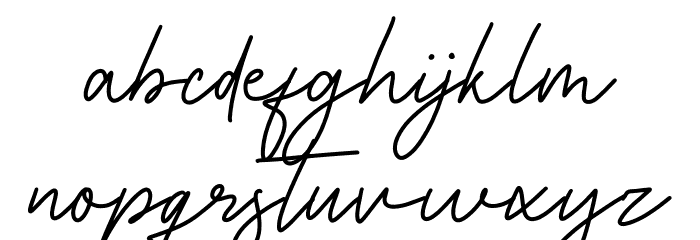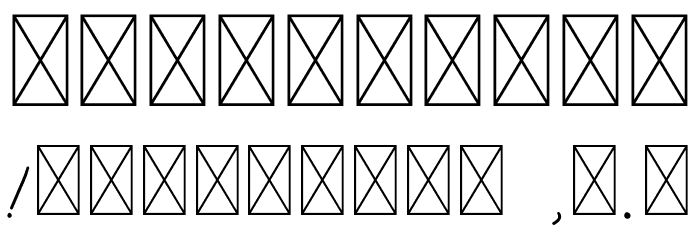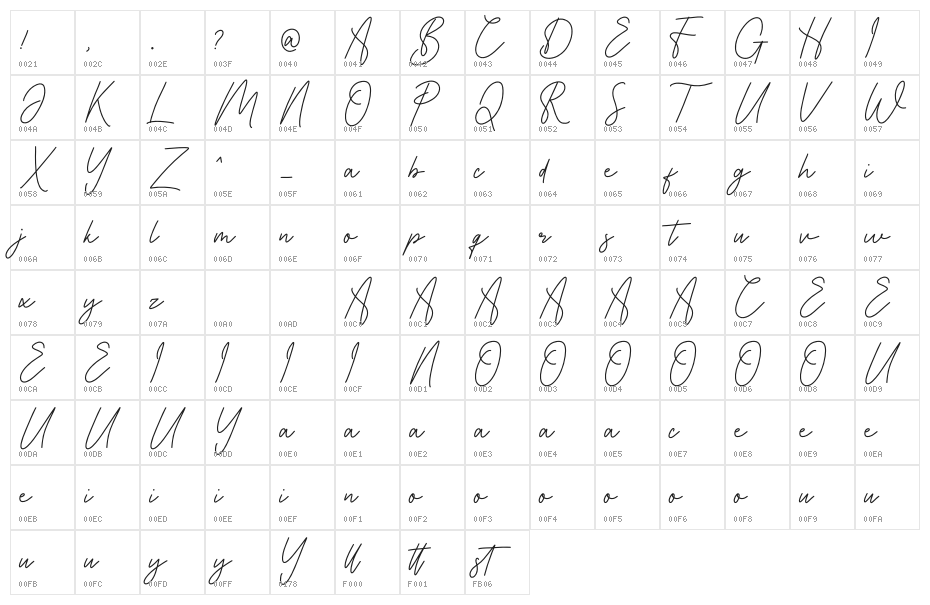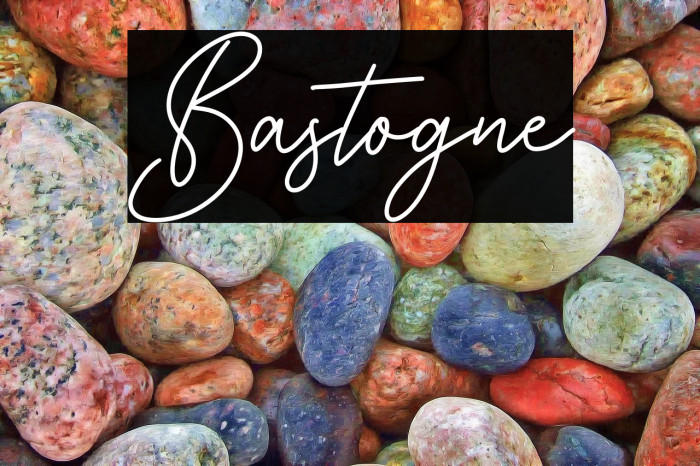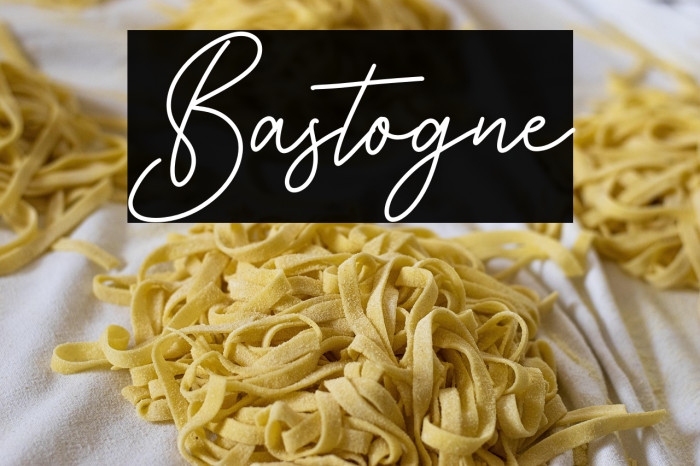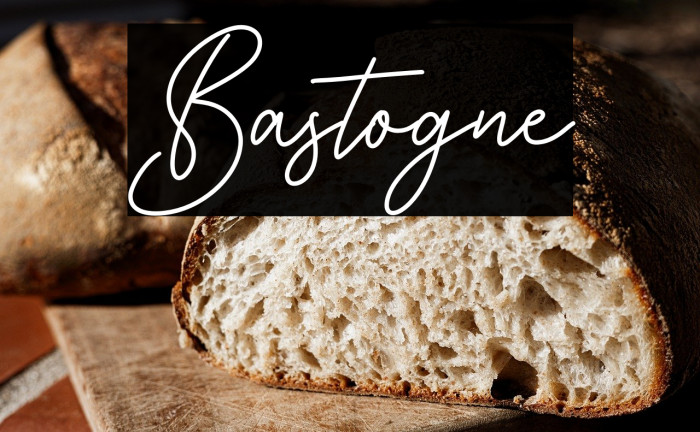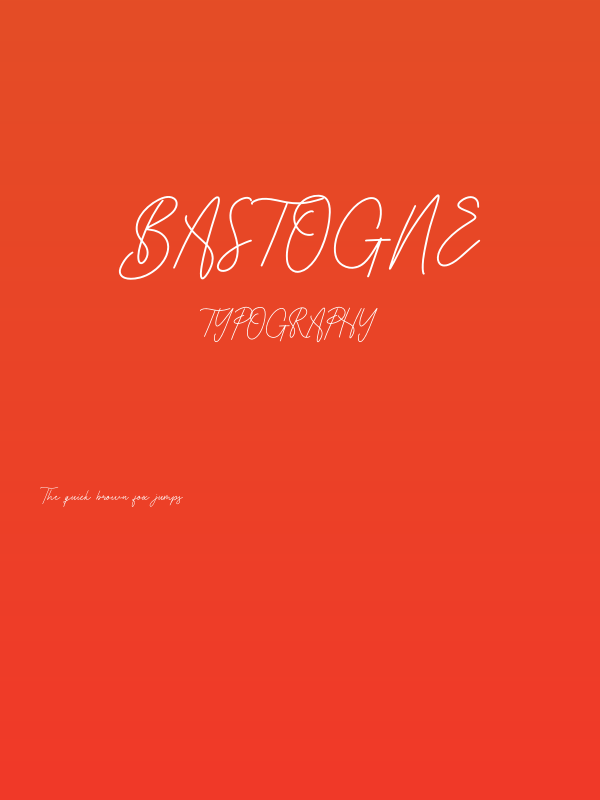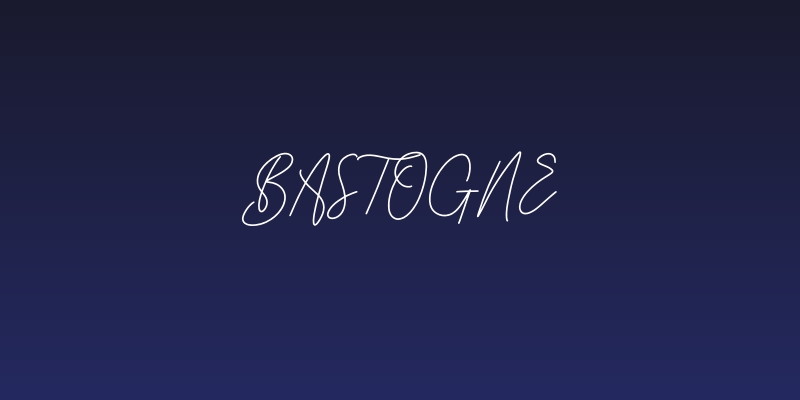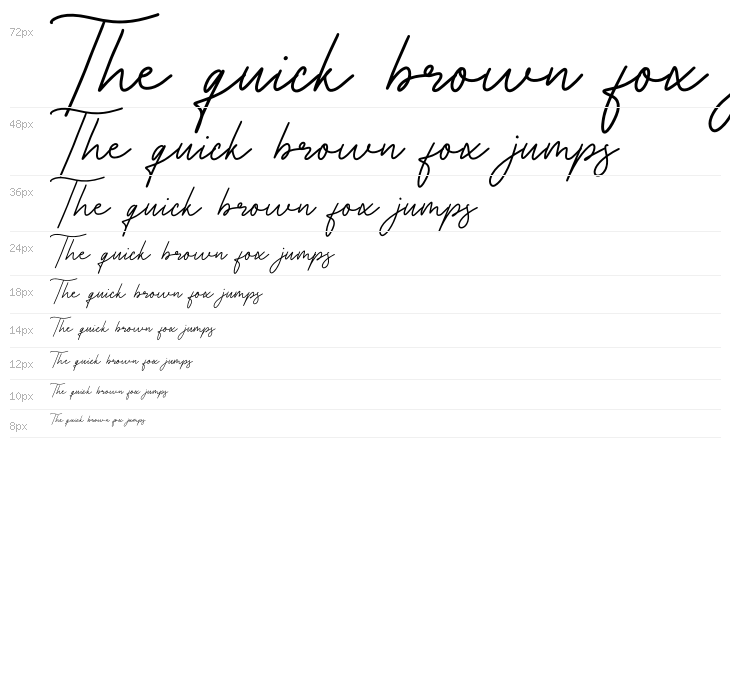
Bastogne Font
This font features a flowing, cursive style that mimics elegant handwriting. The uppercase letters are tall and slender, with a slight slant that adds a dynamic feel. The lowercase letters are smoothly connected, enhancing the script's fluidity. The strokes are consistent in width, providing a uniform appearance across all characters. This font exudes a sense of sophistication and grace, making it ideal for projects that require a personal touch. The absence of special characters and numbers suggests a focus on alphabetic text, emphasizing its use in decorative or artistic contexts.
A graceful, cursive script font with a handwritten style.
- Proposed Projects: Ideal for wedding invitations, personal letters, branding for luxury products, and artistic designs.
- Overall Style: Elegant and sophisticated
- Use Case: Invitations, personal notes, branding